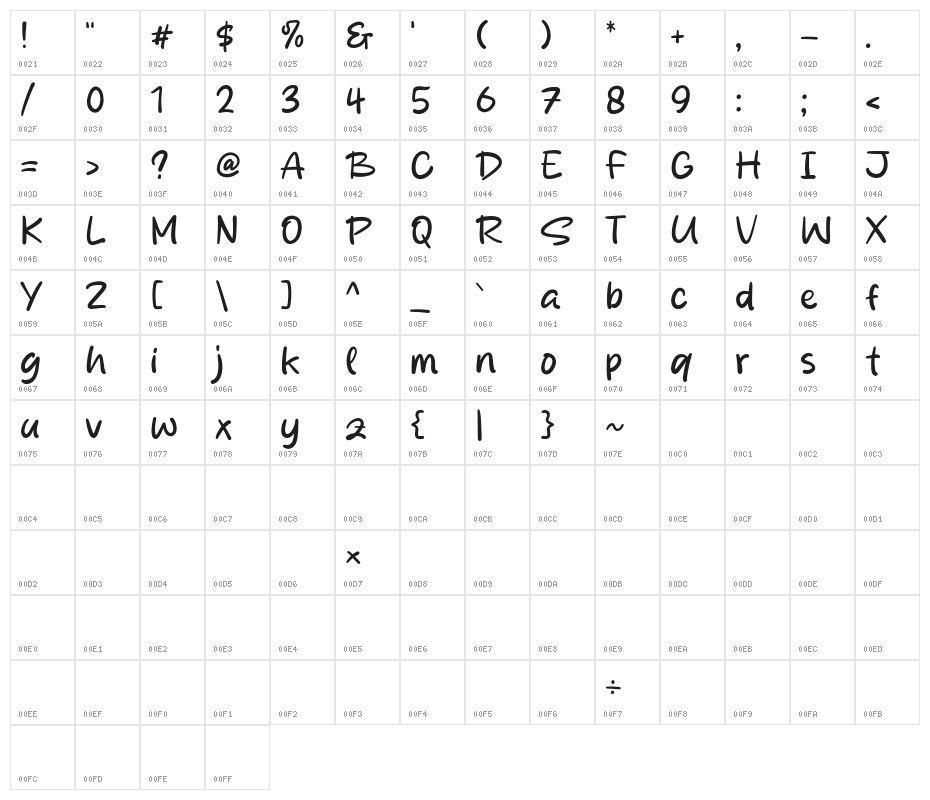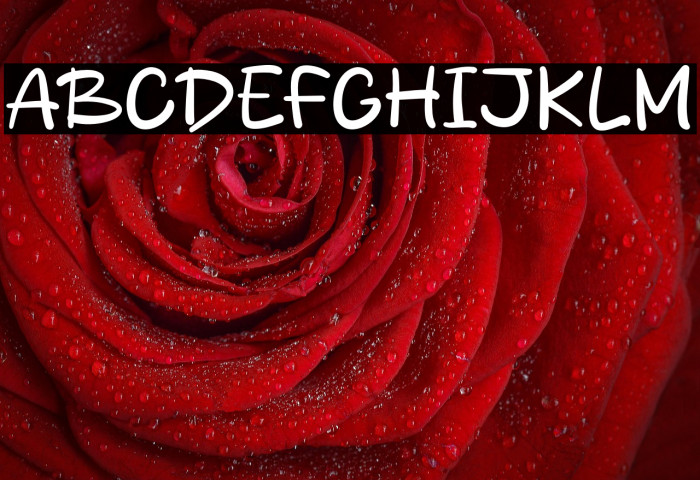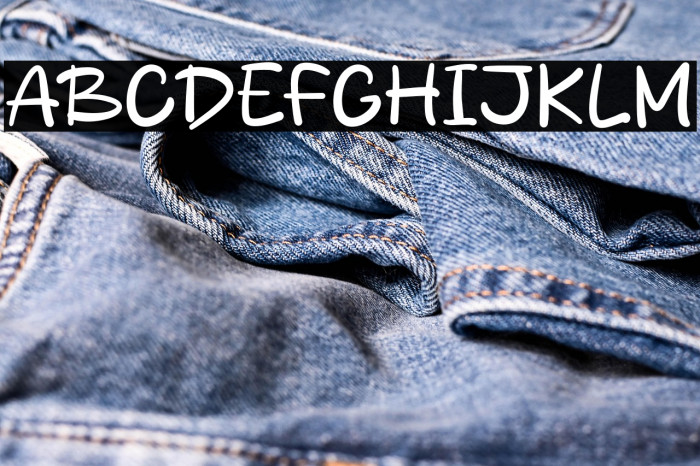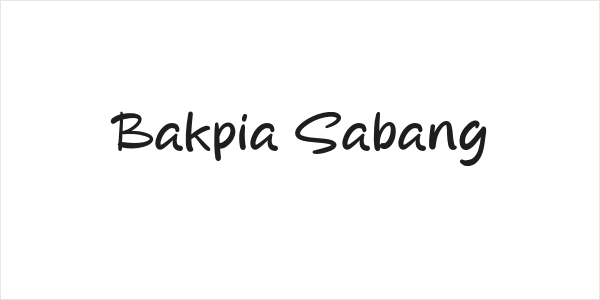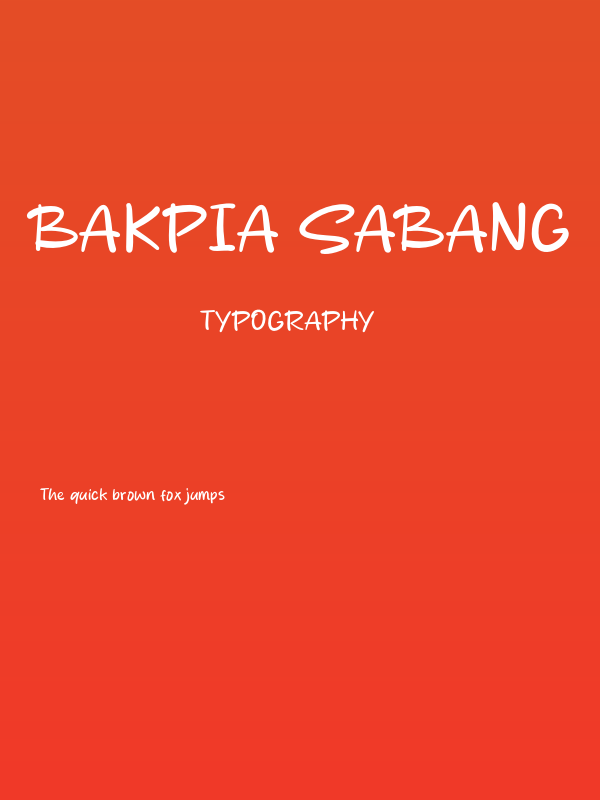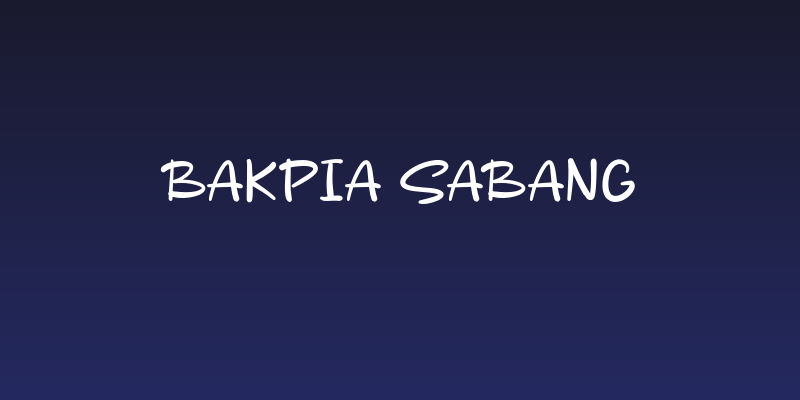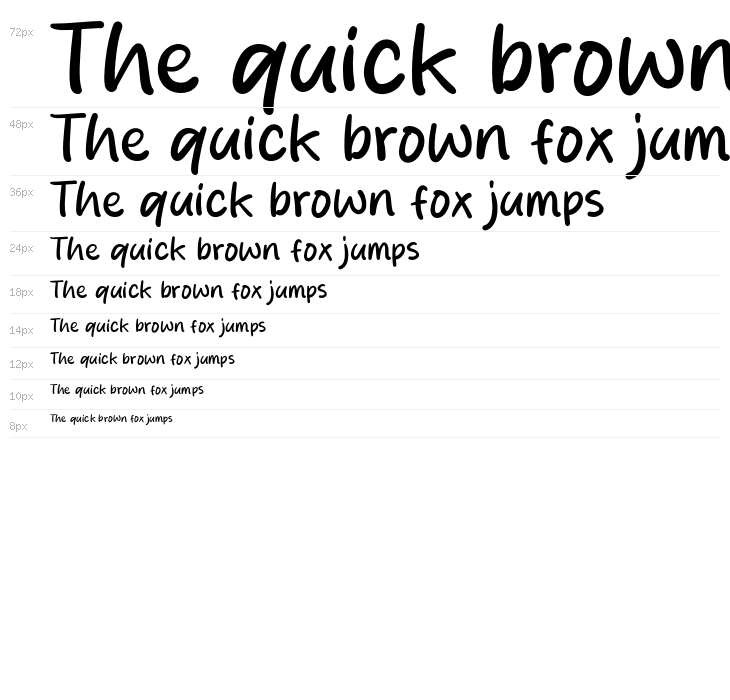
Bakpia Sabang Font
Bakpia Sabang Description
This font features a playful and casual handwritten style, characterized by smooth, rounded edges and a consistent stroke width. The letters are slightly slanted, giving a dynamic and informal appearance. The uppercase and lowercase characters maintain a harmonious balance, while the numerals and special characters integrate seamlessly into the overall design. This font's friendly and approachable aesthetic makes it suitable for a variety of creative applications.
| Use Case | Logos, Headlines, Informal text |
| Proposed Projects | Ideal for greeting cards, children's books, casual branding, and social media graphics. |